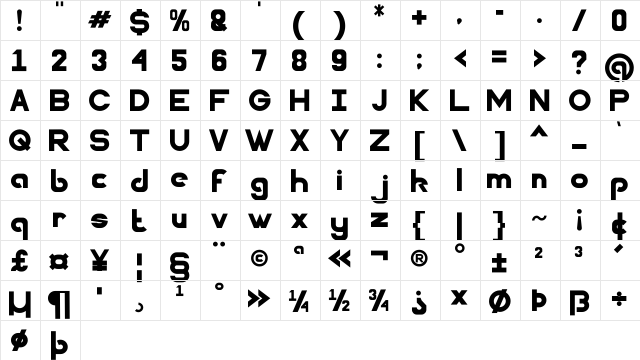
SUPER BOLD Regular
| Foundry | Indra Gunawan |
| Designer | Indra Gunawan |
Design Context for SUPER BOLD Typeface
SUPER BOLD offers clean, dependable letterforms without strong stylistic allegiance, making it a practical choice for designers who need flexibility. The heavy weight commands attention and anchors typographic hierarchies.
Pro Tip: Pair SUPER BOLD with a font of contrasting weight or personality to build a more expressive typographic hierarchy.